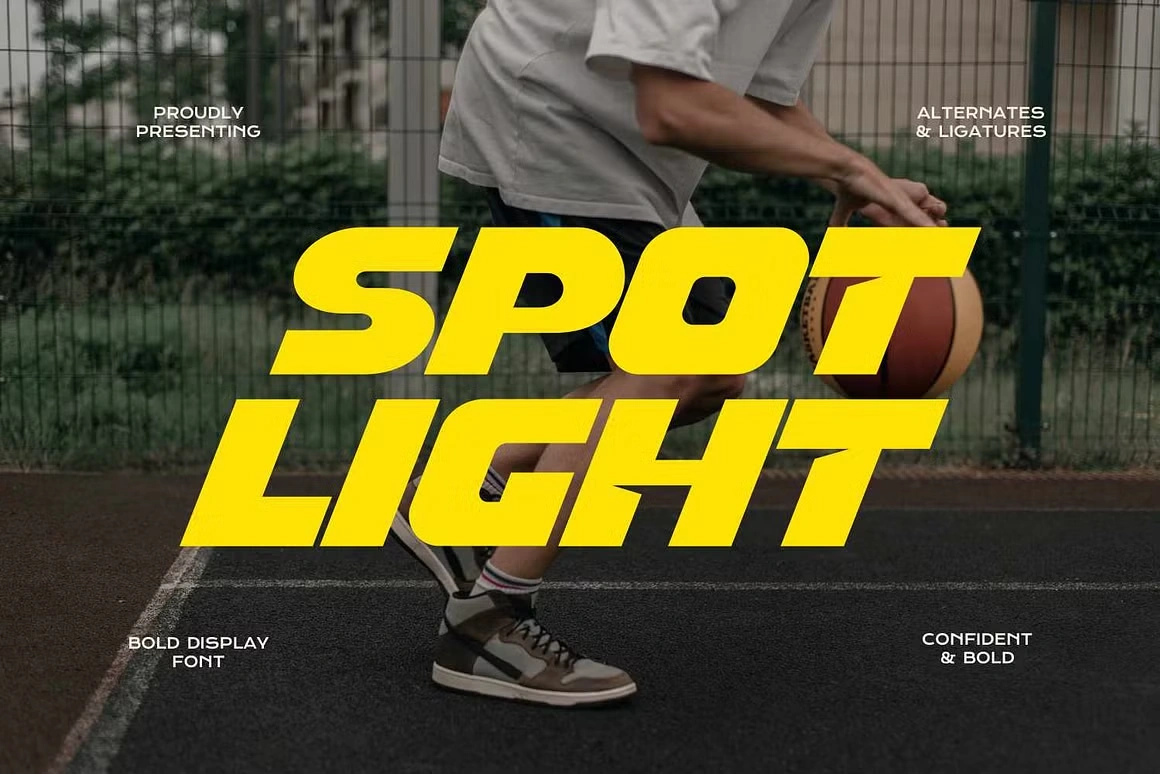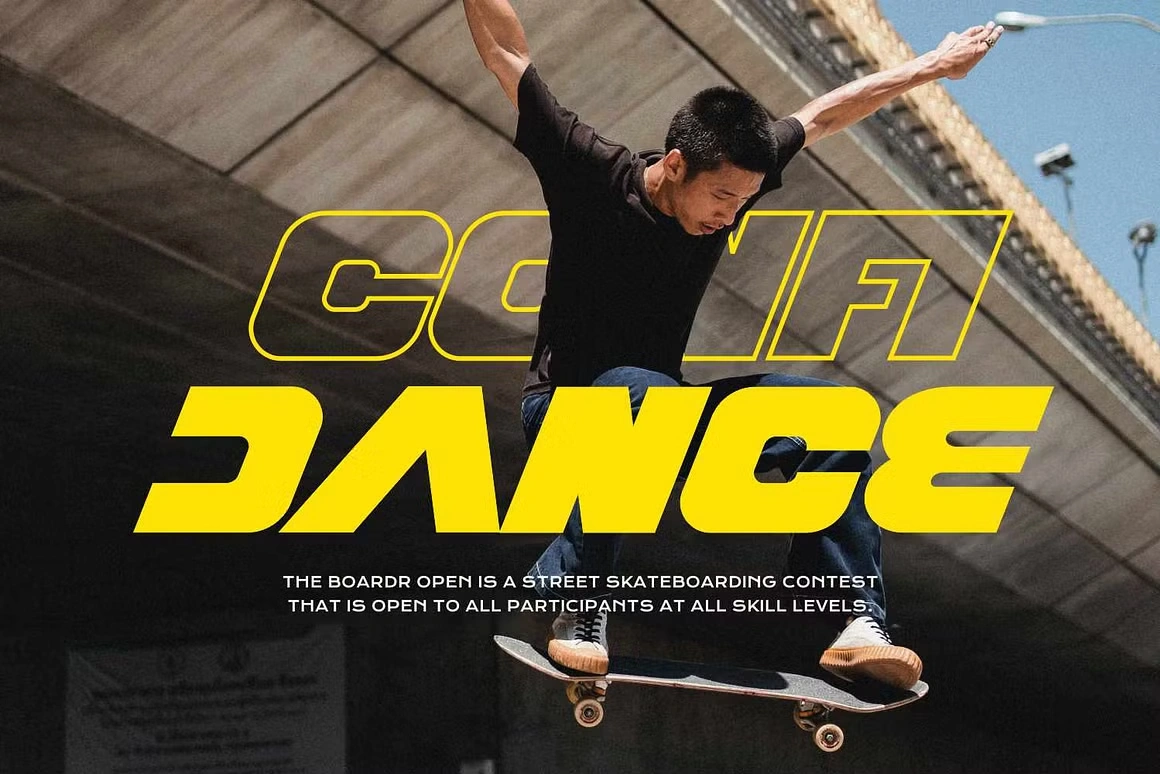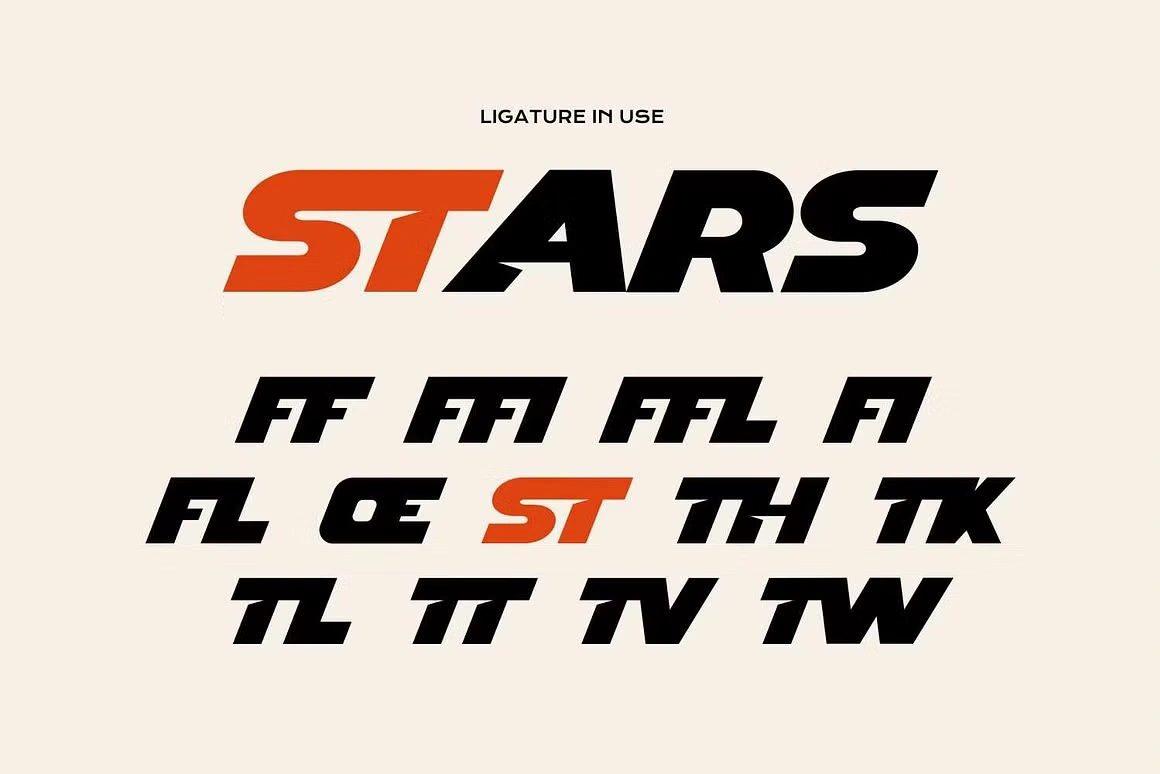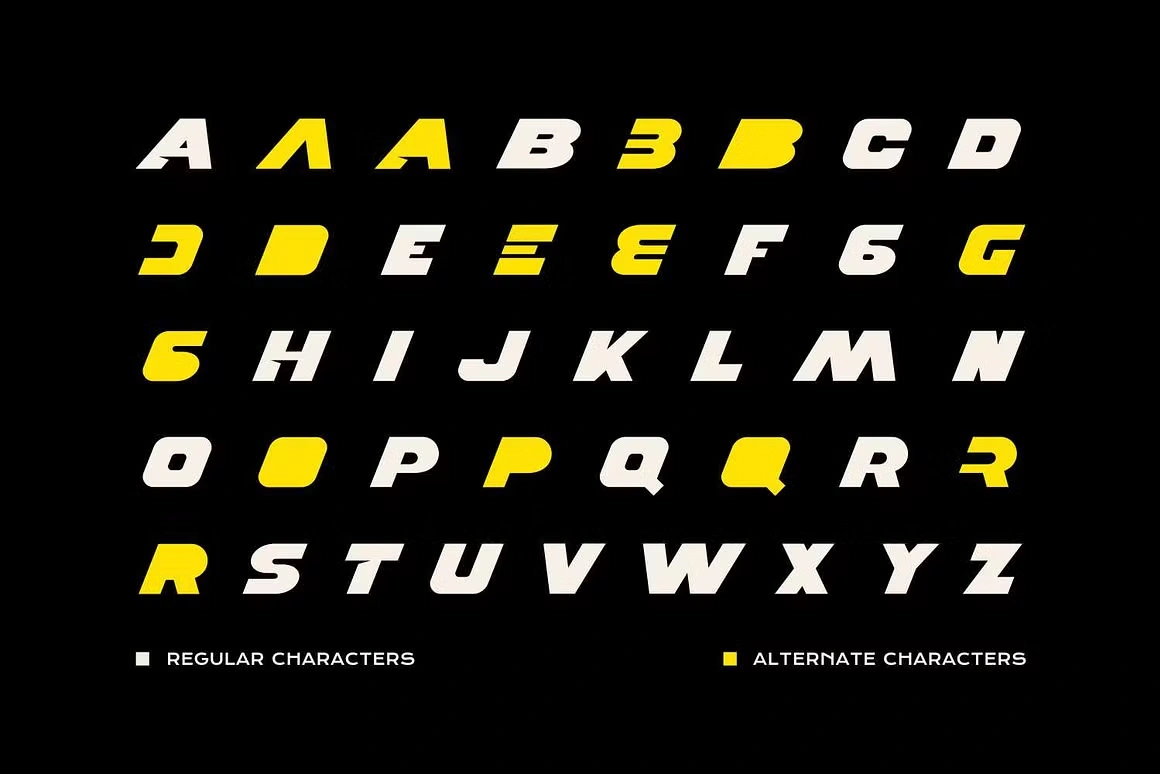
Spot Light Font
About Spot Light Font
I’m a graphic designer and typographer with a focus on branding. Fonts are core to how I shape a visual story. I found Spot Light Font while working on a sports-themed design project and was immediately drawn to its clean curves and bold energy. It felt like a perfect fit for something dynamic yet elegant. I used it across social media graphics, product packaging, and the logo system. It held up beautifully across large and small sizes. That’s why I’m writing this review. This typeface deserves more attention from creatives looking for a bold yet polished style.
Font Type and Designer
Spot Light Font is a modern sports display typeface designed with clarity and visual appeal in mind. It was created by Imoodev, a designer known for strong, flexible type systems. This font combines a clean structure with smooth letterforms. It comes in TTF and OTF formats, making it easy to install across most platforms and design tools like Photoshop, Illustrator, or InDesign.
This isn’t just another trendy font. It brings purpose. Every curve feels intentional, and the balance between boldness and readability makes it stand out. It performs well in both large headlines and small labels. Whether you’re designing for print or digital, it stays consistent. The font works great in modern layouts and also pairs well with other sans-serif or geometric typefaces.
Spot Light is not a copy of other display fonts. It’s unique in its character and versatile in function. With multilingual support and stylistic ligatures included, the typeface is more than just visual—it’s complete.
Features of Spot Light Font
Spot Light Font has a polished look with soft, smooth curves. Its ligatures are beautifully crafted, giving your work a refined edge. It includes uppercase and lowercase letters, full punctuation, numbers, and multilingual symbols. The file supports major formats like TTF and OTF, so it works on all platforms.
This font brings a bold feel while keeping things modern and clear. The spacing is clean. The structure feels strong, which is perfect for athletic themes or media-heavy designs. It’s a display sports font, but it’s not limited to fitness or soccer content. It blends just as well into lifestyle brands, magazines, or even corporate decks.
The font is versatile. You can use it for small quotes or big headline posters. It adapts well across different sizes and keeps that professional touch. The mix of elegance and power makes it stand out in a crowded space of similar fonts.
Spot Light Font fits a wide variety of projects. Whether you’re working on a corporate identity, personal branding, or a social media campaign, it has you covered. I’ve used it for logos, product packaging, posters, and promotional assets. Each use felt cohesive and bold. The font’s structure makes it suitable for high-impact visuals without losing elegance.
It works great for sports brands, media banners, photography watermarks, and creative agency presentations. You can place it on mugs, apparel mockups, or even signature-style cards. The letterforms remain sharp in both digital and print formats.
For teams, it supports large campaign visuals. For individuals, it’s clean enough for resumes, invitations, and portfolio sites. Whether you’re aiming for an energetic or minimal theme, this font adapts. Use it in modern layouts that require a strong header. Or mix it with a light sans serif for contrast.
From business sectors to personal studios, Spot Light adds a sharp, professional edge. It looks just as good in motion graphics as it does in a clean product label. If you’re after a display font with visual elegance and versatility, this one delivers.